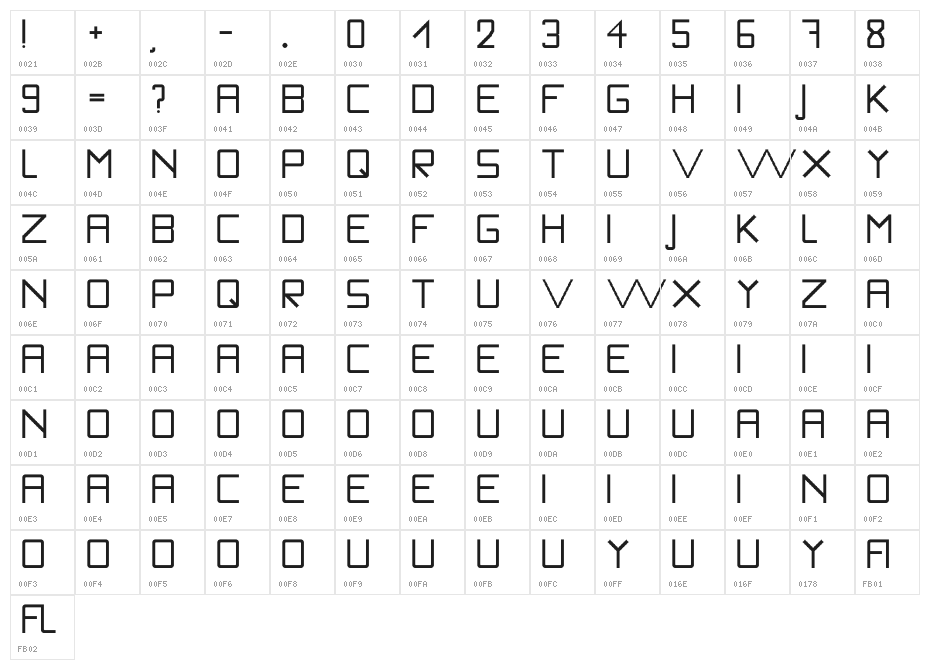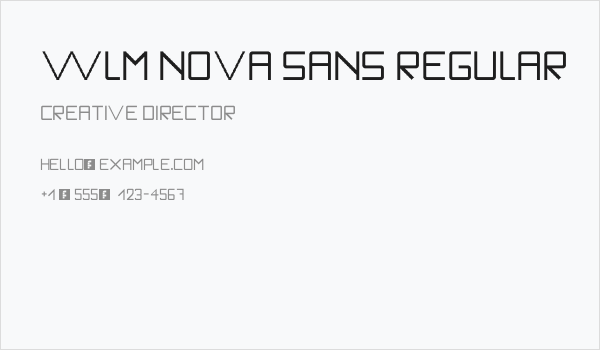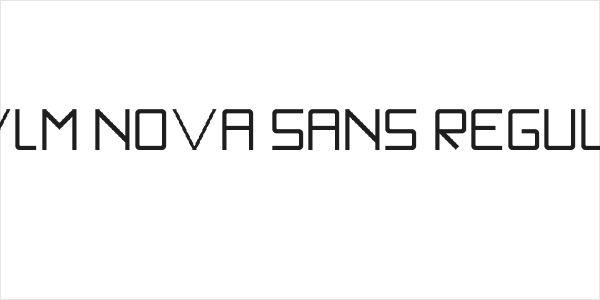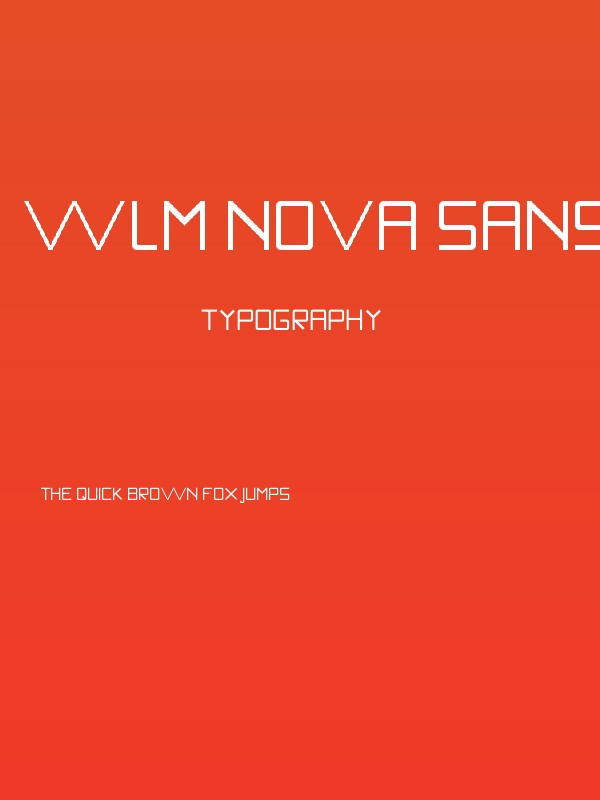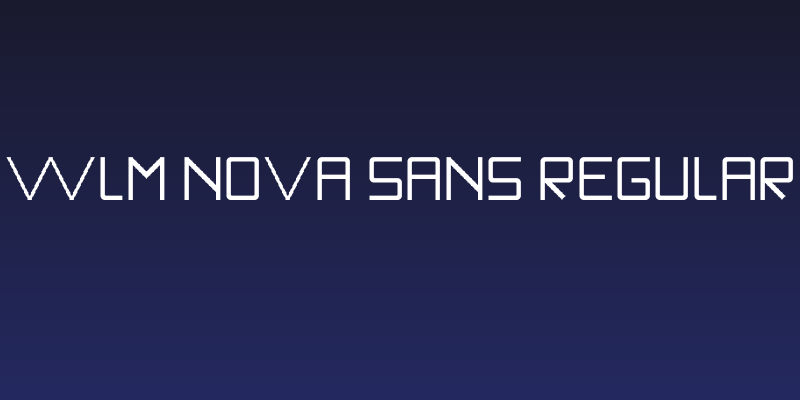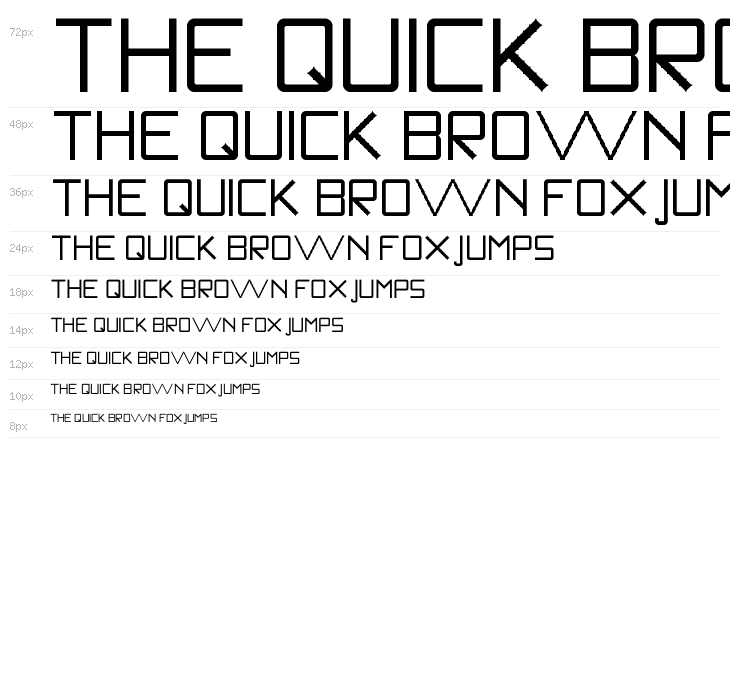
WLM Nova Sans Regular Font
WLM Nova Sans Regular Description
This font features a modern, geometric sans-serif style with clean, straight lines and a uniform stroke width. The characters are well-defined with a slightly condensed appearance, giving it a sleek and contemporary look. The uppercase letters are bold and assertive, while the lowercase letters maintain a consistent design, enhancing readability. The numerals are distinct and align well with the overall style, making them suitable for digital displays. Special characters are included, maintaining the geometric theme, which adds versatility to the font's use.
| Use Case | Headlines, Digital displays, Branding |
| Proposed Projects | Ideal for digital interfaces, tech branding, modern advertising, and minimalist design projects. |